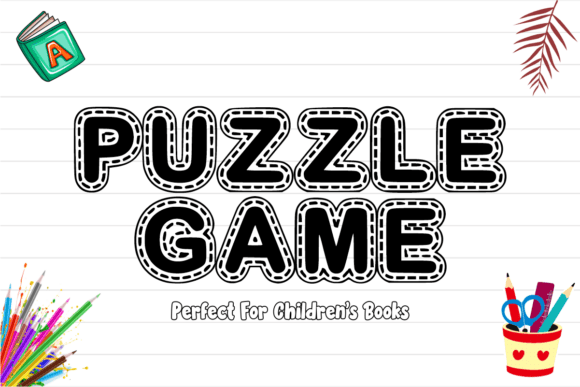
Kids Creative Font
Introducing “Kids Creative Font”, a strikingly trendy and lovely alphabet created with the little ones in mind.
Composed solely of uppercase letters, each character of this font embodies a sense of joyfulness, individuality, and charm. With its delightful appearance, “Kids Creative” naturally complements projects such as children’s handicraft designs, sublimation shirts, personalized mugs, tote bags, animations, comic book titles, kiddie coloring books, and even chic wedding co-ordinates.